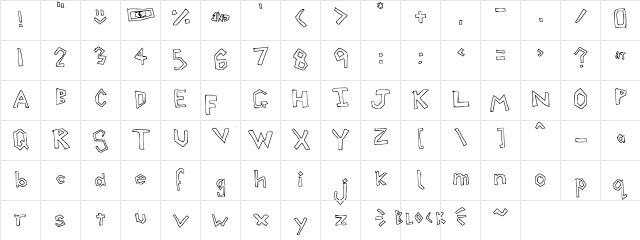
Triangular Blockage Regular
Triangular Blockage is a composed and adaptable typeface that performs quietly and consistently across a wide range of design contexts.